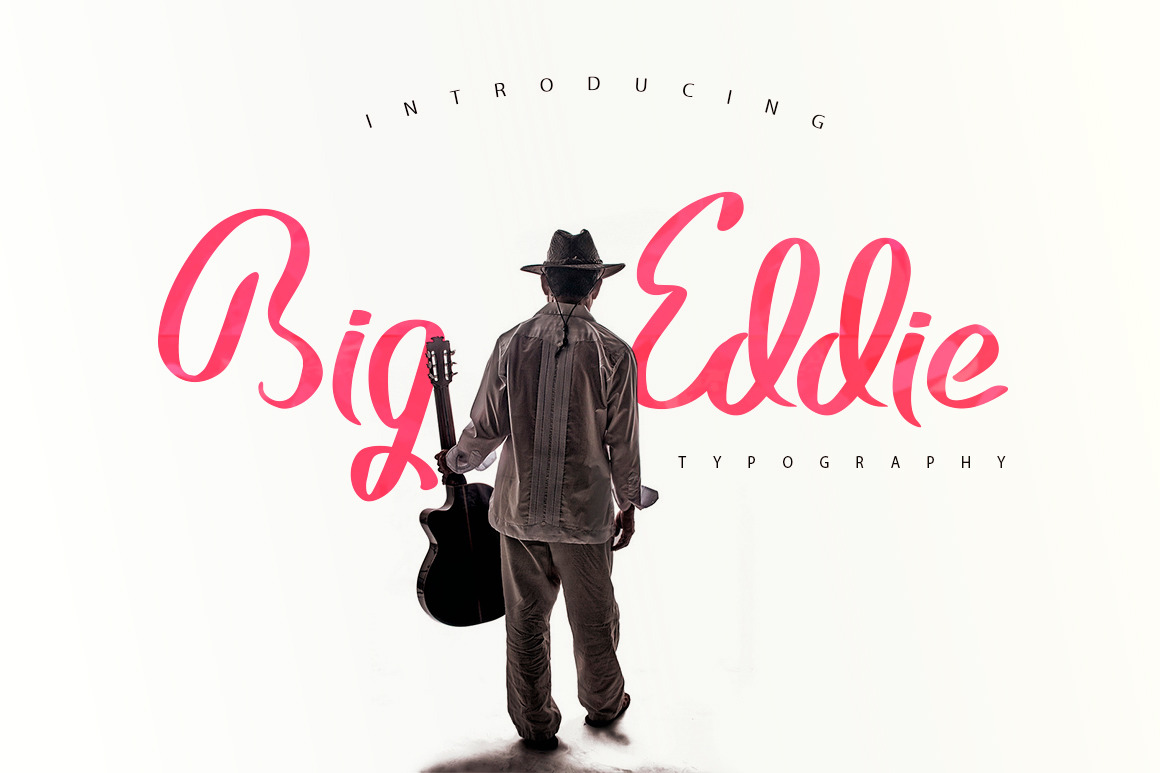
Big Eddie Script Typeface
Big Eddie is a family handmade font perfect for logos, titles and templates. All punctuations, extensions, lowercase and uppercase, numbers and webfont.